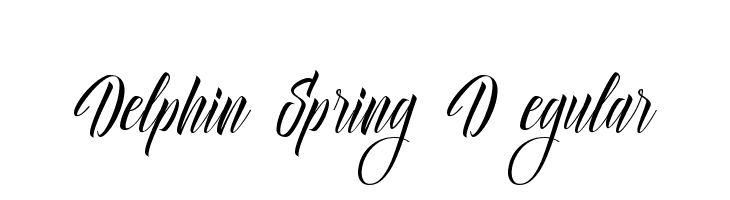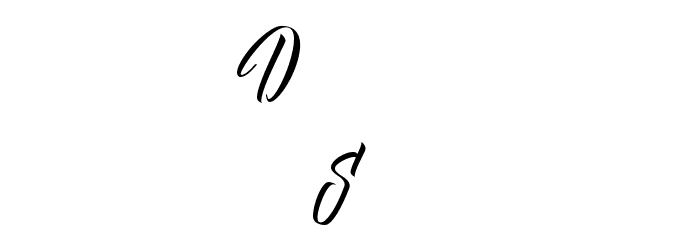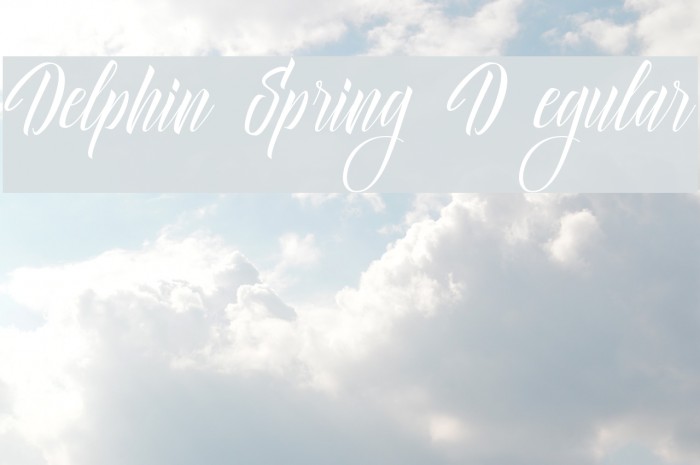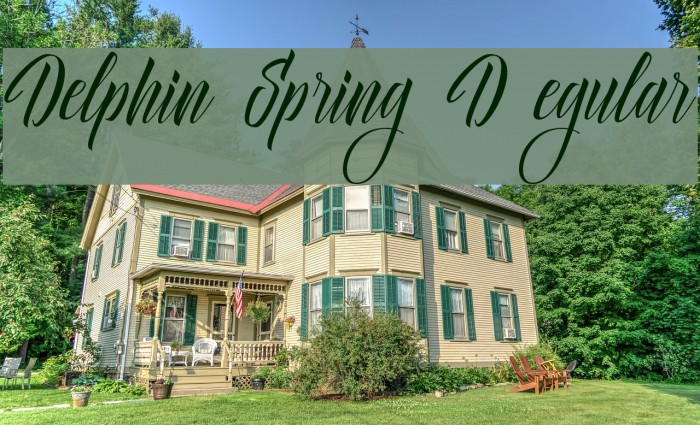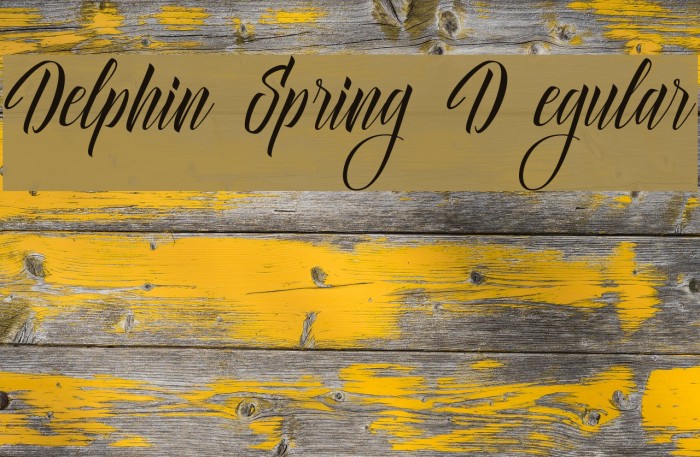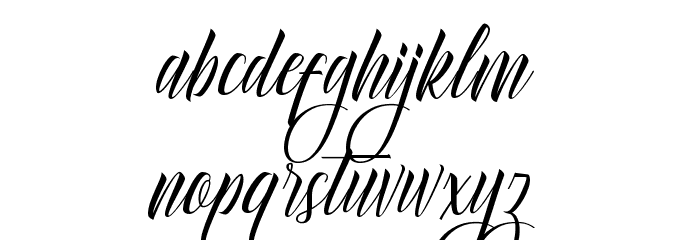
Delphin Spring DEMO Regular Font
Delphin Spring DEMO Regular Description
This font exudes elegance and sophistication with its fluid, cursive style. The characters are intricately designed with smooth curves and delicate strokes, giving it a handwritten appearance. The uppercase letters are particularly ornate, featuring elaborate swirls and flourishes that add a touch of grandeur. The lowercase letters maintain a consistent flow, enhancing readability while preserving the artistic flair. The overall design is balanced, with a slight slant that adds dynamism and movement. This font is perfect for projects that require a personal, elegant touch, such as wedding invitations, greeting cards, or luxury branding.
| Overall Style | Elegant |
| Use Case | Logos, Invitations, Decorative text |
| Proposed Projects | Ideal for wedding invitations, greeting cards, luxury branding, and personal stationery. |